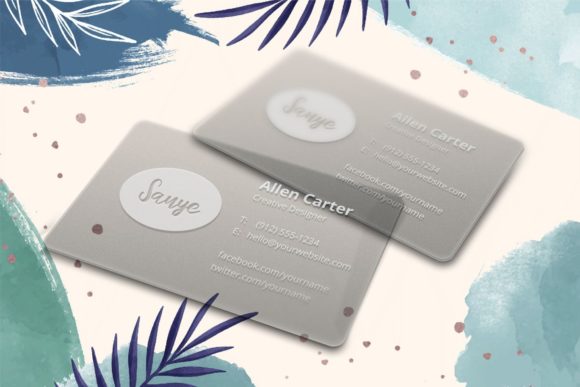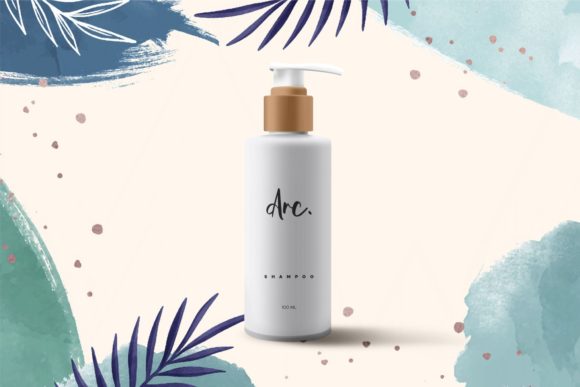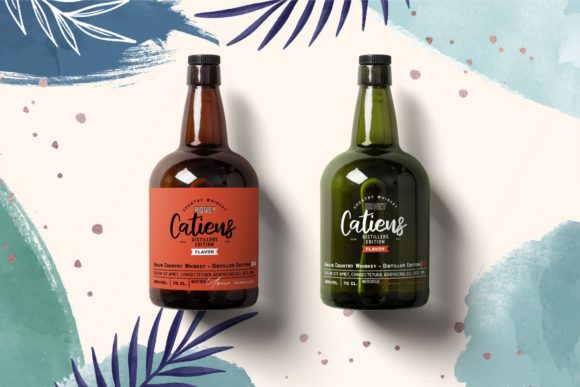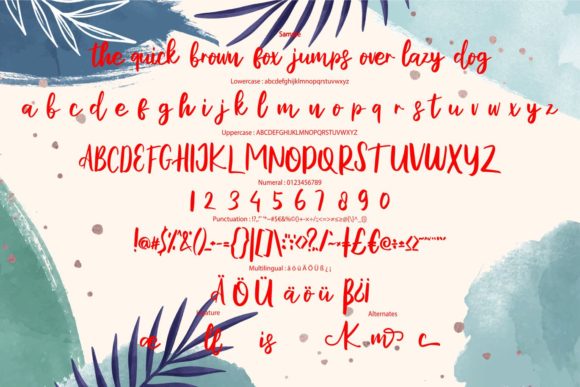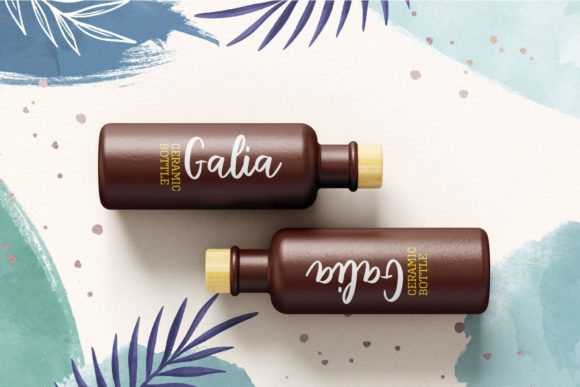
About Kolisem Font
Kolisem is a sweet brushed handwritten font. It is defined by smooth curves and is perfect for fashion branding or editorial designs. Add it confidently to your projects, and you won’t be disappointed.